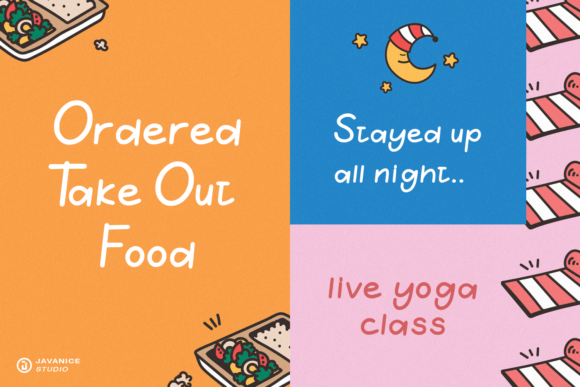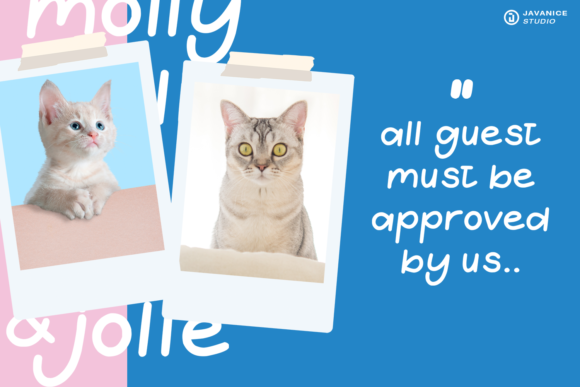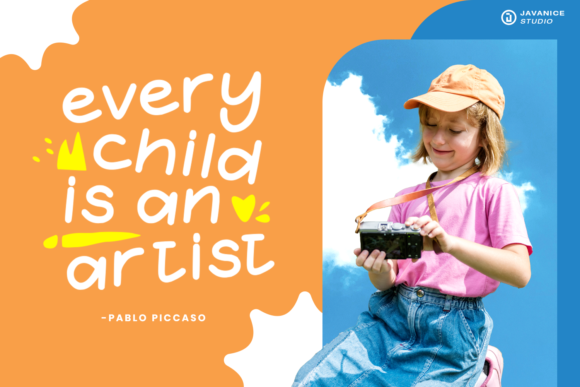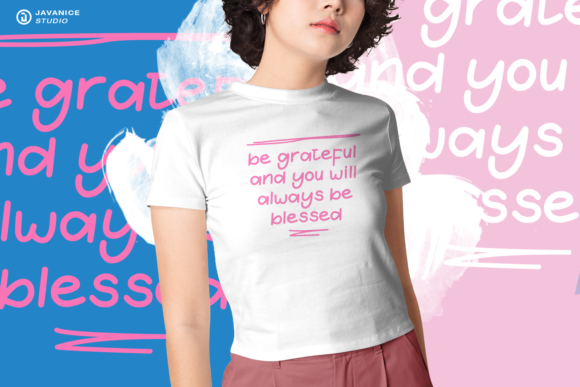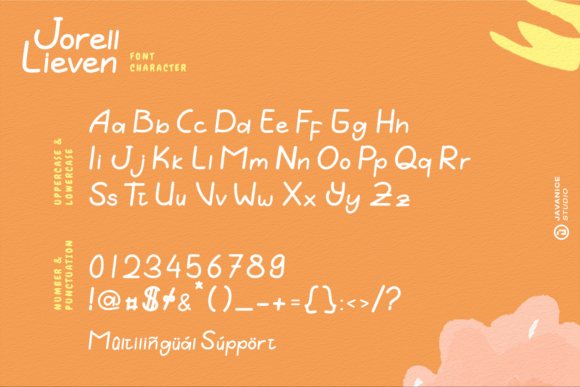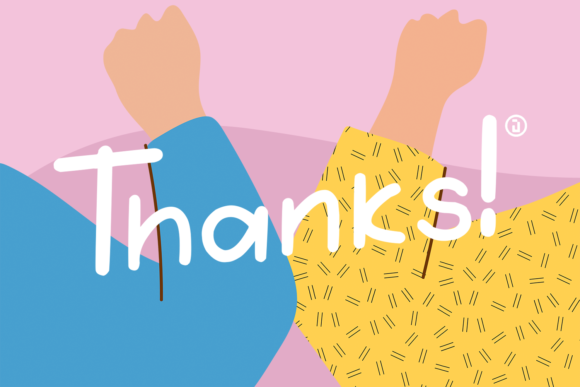
Jorell Lieven Font
About Jorell Lieven Font
Jorell Lieven is a vibrant and brushed handwritten font, tailored to infuse a sense of playfulness and creativity into your branding endeavors. Designed to elevate various applications such as logos, t-shirt printing, and creative products, this font has the versatility to look extraordinary in a myriad of contexts.
The font’s playful and brushed aesthetic brings forth a dynamic and spirited quality to your designs. Picture “Jorell Lieven” crafting a lively and engaging logo, where its playful vibe injects energy and character into the visual identity. Envision it on t-shirts, imparting a dynamic and expressive flair to the printed text, ensuring it stands out with its charming handwritten appeal.
For any branding project that requires a distinctive and spirited touch, “Jorell Lieven” stands out as a font that effortlessly combines playfulness with a brushed, handcrafted demeanor. Its adaptability allows it to seamlessly integrate into diverse design contexts, making it a preferred choice for projects seeking a vibrant and dynamic aesthetic.
Whether implemented digitally or in print, “Jorell Lieven” transcends being merely a font; it serves as a design instrument that introduces a playful and brushed handwritten vibe to your creative pursuits. Its ability to appear extraordinary across different contexts makes it an excellent choice for those in search of a font that effortlessly communicates a lively and enjoyable aesthetic in branding and creative projects.